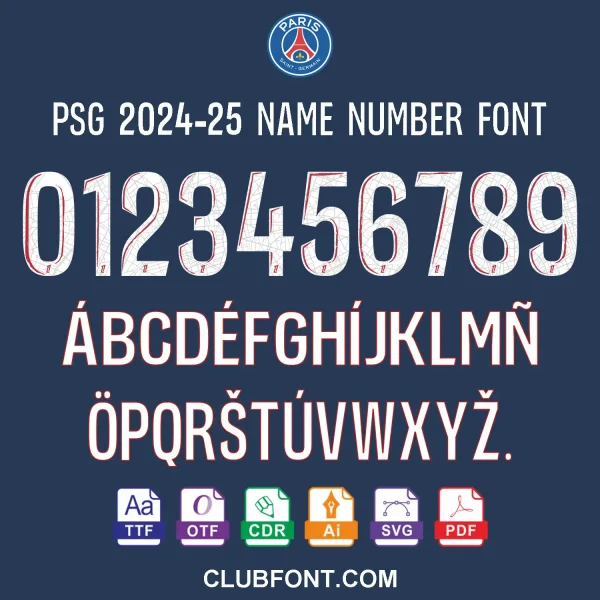
✅ Uppercase A–Z · Numbers 0–9
Bring the Parc des Princes look to your own jersey projects with the PSG 2024-25 Name & Number Font, faithfully recreated from the lettering worn by Paris Saint-Germain during the 2024-25 Ligue 1 season and the PSG x Jordan 2024-25 match kits. This comprehensive digital package includes everything you need to replicate professional namesets for personal or commercial use.
• Complete Character Set: Full uppercase A-Z alphabet and numerals 0-9 matching the official specs.